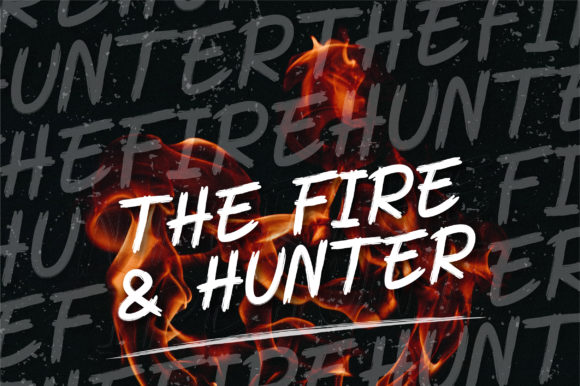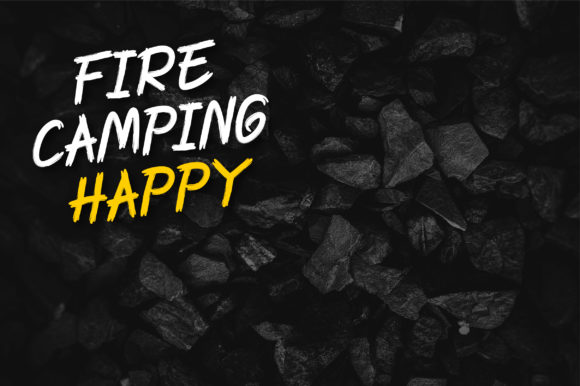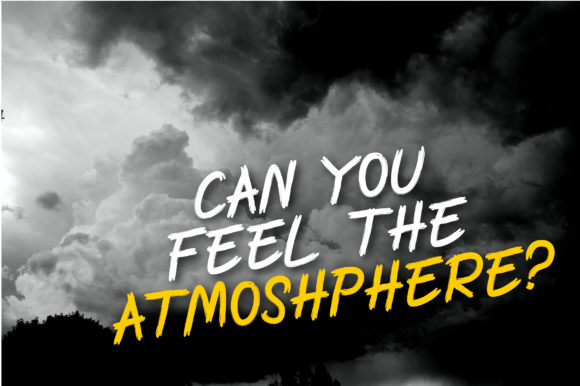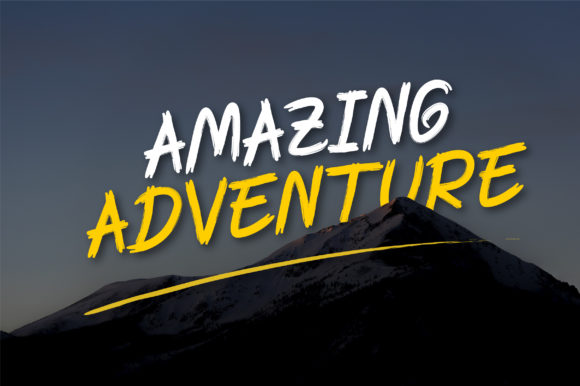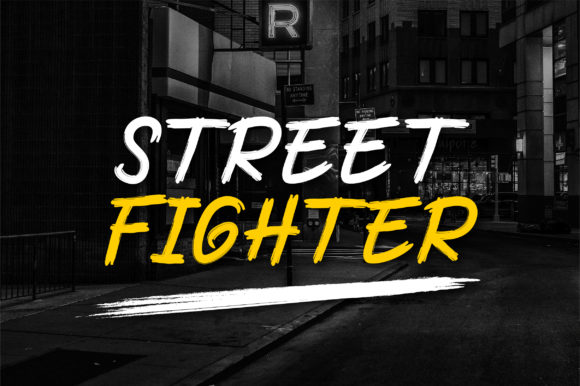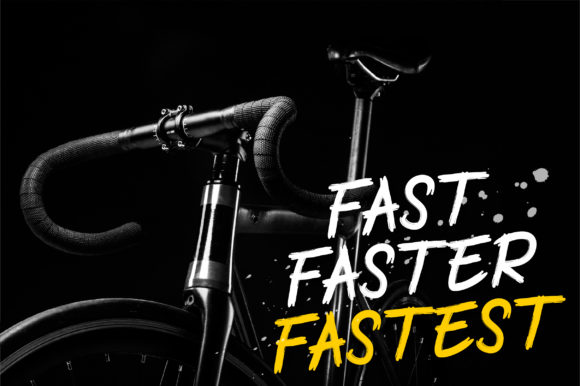
The Grawust Font: A Supercharged Brushed Display Font for Crafty Ideas
I still remember the design project that led me to discover the Grawust font. I was working on a branding project for a local craft fair, and I needed a font that would capture the playful, handmade spirit of the event. After hours of searching, I stumbled upon Grawust, and it was love at first sight! ✨ The original look of this supercharged brushed display font immediately resonated with my design vision, and I knew I had found the perfect fit.
An Honest Review of Grawust
- 💥 Unique, eye-catching design that’s perfect for making a statement
- ✅ Highly versatile and adaptable for various design projects
- 🎨 Great for adding a personal, handcrafted touch to designs
- 📚 Extensive character set, including OpenType features and glyphs
While Grawust is an amazing font, there are a few things to keep in mind: 🤔
- ⚠️ May not be suitable for body text or small font sizes due to its bold, expressive nature
- ⚠️ Some characters may require manual kerning for optimal spacing
The Story Behind Grawust
Grawust was designed with the intention of creating a font that would capture the spirit of handmade craftsmanship. The designer wanted to create a font that would be perfect for adding a personal touch to designs, and Grawust was born. With its unique, brushed look and extensive character set, Grawust has become a go-to font for designers and crafters alike.
Q: What type of projects is Grawust best suited for?
A: Grawust is perfect for projects that require a bold, eye-catching font, such as titles, headings, and display text. It’s great for branding, packaging, and advertising projects.
Q: Is Grawust available in different weights or styles?
A: Currently, Grawust is available in a single weight. However, the font does include OpenType features, such as stylistic alternates and glyphs, that can help you add visual interest to your design.